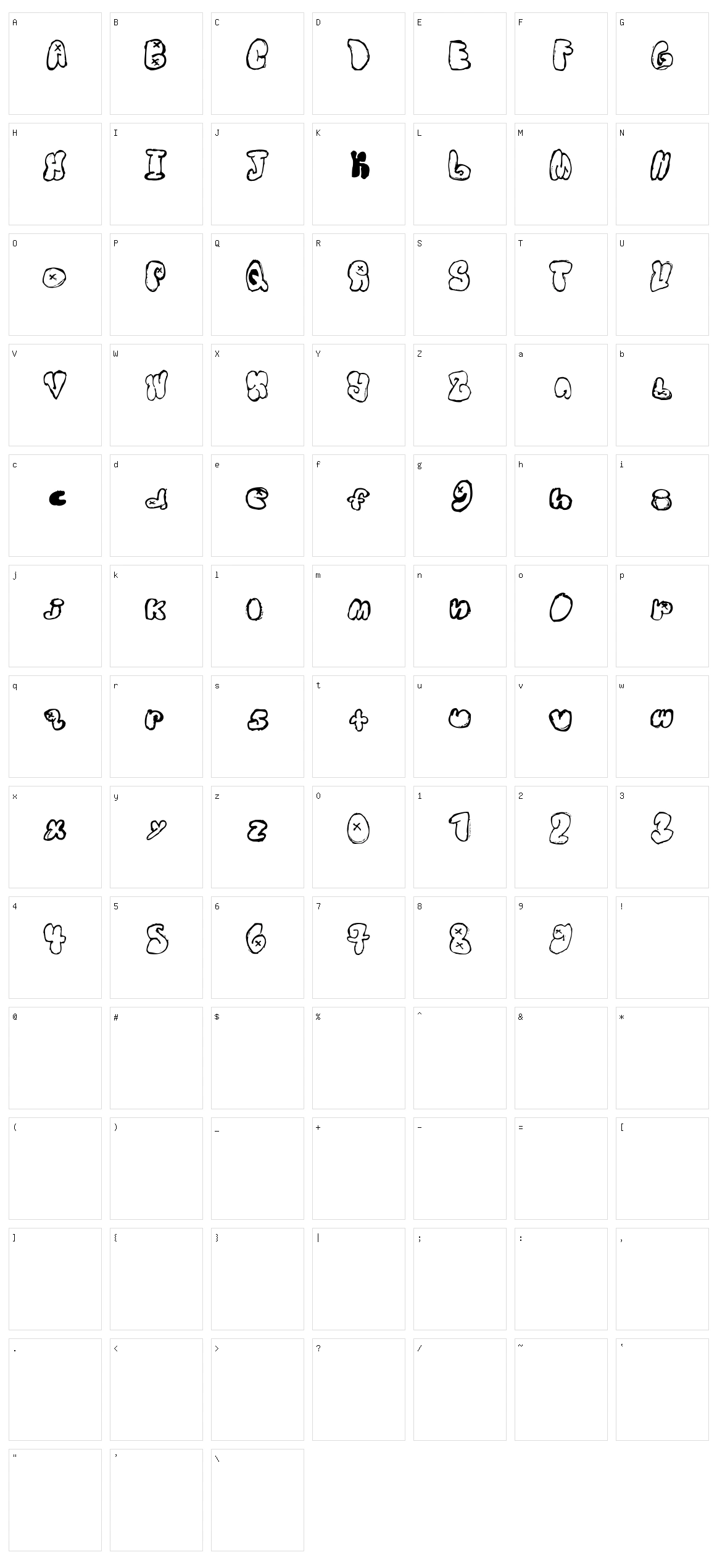
The free font Wyatt Bubbles is carefully designed by Wyatt Anderson, showcasing a thoughtful balance of creativity and usability and falls under the Cartoon font style. When you download the ZIP file, it contains only 37.99 KB of font files, making it lightweight and quick to download. Please review the license details below to understand permitted usage and distribution rights. If license information is not available, we recommend using this font for personal projects only or contacting the author directly for commercial usage permissions.